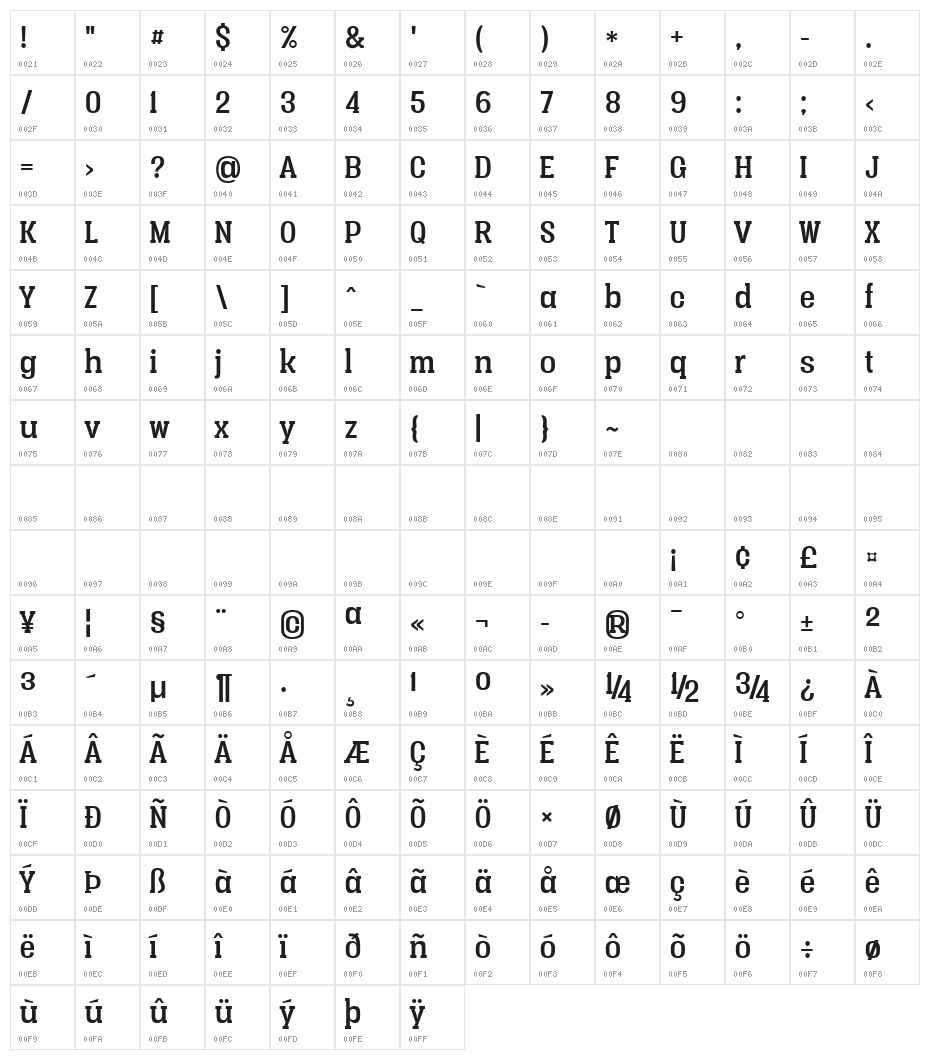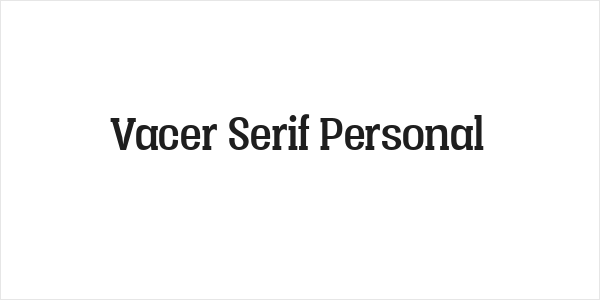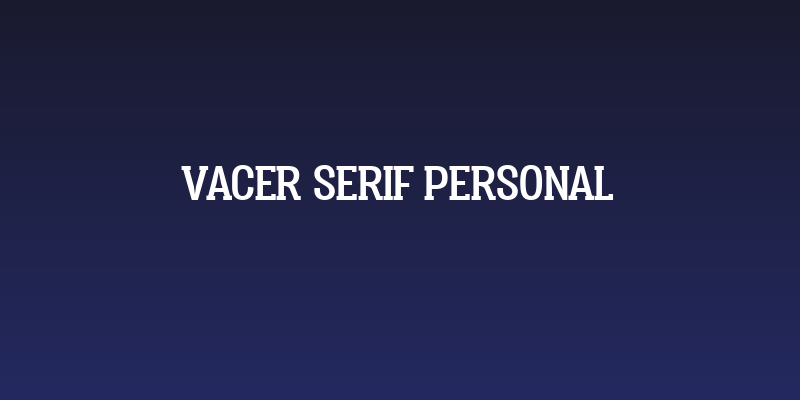
Vacer Serif Personal Font
Vacer Serif Personal Description
This typeface features a robust and classic serif design, characterized by its strong vertical lines and prominent serifs. The uppercase letters exhibit a bold presence, while the lowercase letters maintain a balanced and readable form. The numerals are clear and consistent, complementing the overall aesthetic. Special characters are well-integrated, ensuring versatility in various applications. The font's structure is both traditional and authoritative, making it suitable for formal and impactful designs.
| Use Case | Headlines, Editorial design, Branding |
| Proposed Projects | Ideal for editorial design, book covers, formal invitations, and branding projects requiring a classic touch. |